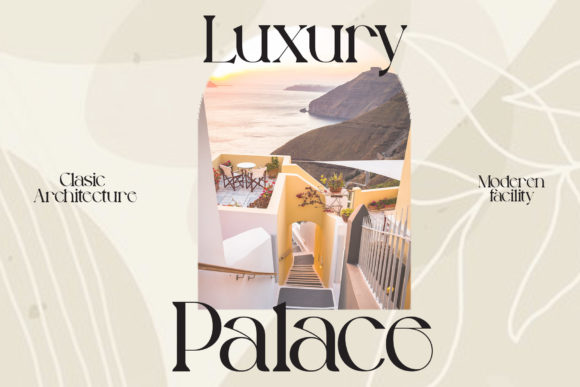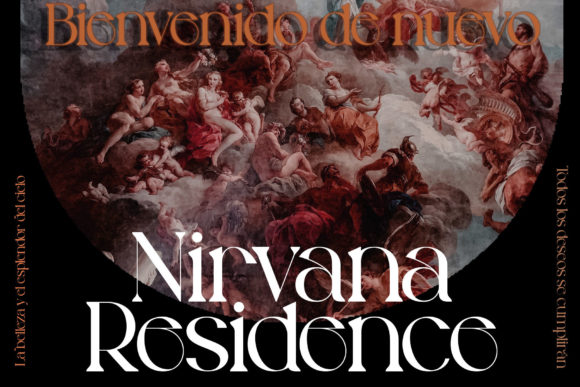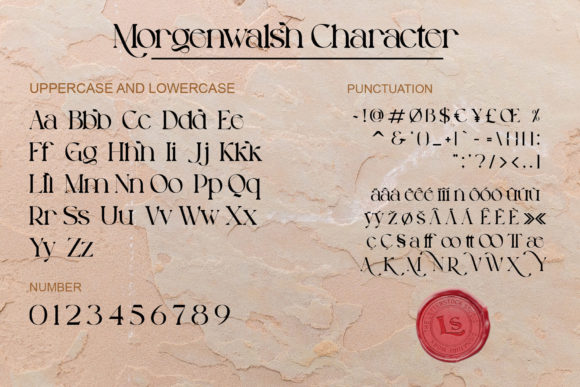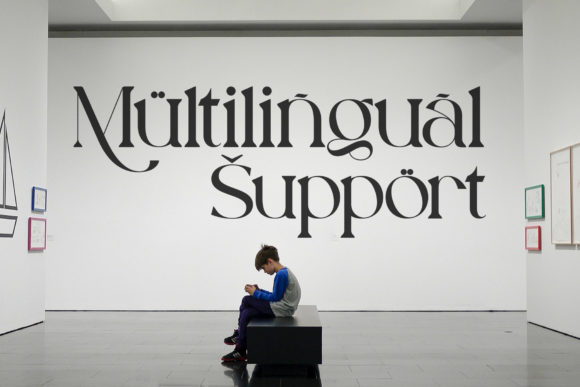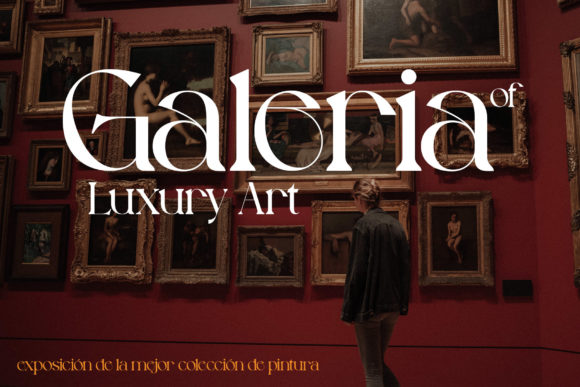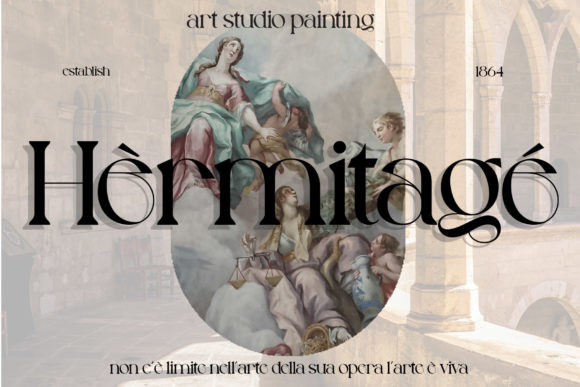
Introduction to Morgenwalsh Font Font
Fonts play a crucial role in design, and the Morgenwalsh Font font is a typeface that brings both character and versatility to any project. Whether you’re working on a branding project, a website, or a print design, the Morgenwalsh Font font offers a unique style that can elevate your work.
Morgenwalsh is a trendy and stylish serif font.
Fall in love with its incredibly versatile style and use it to create spectacular designs The only limit is your imagination.
Key Features of Morgenwalsh Font Font
Why Choose Morgenwalsh Font Font?
The Morgenwalsh Font font is more than just a typeface – it’s a design tool that helps you communicate your message with style and clarity. Its unique character set and versatile design make it suitable for a wide range of applications, from elegant invitations to bold headlines.
With its carefully crafted letterforms and balanced proportions, the Morgenwalsh Font font ensures readability and visual appeal across all mediums.
What makes Morgenwalsh Font font special?
The Morgenwalsh Font font stands out with its unique design, exceptional readability, and versatility across various design applications.